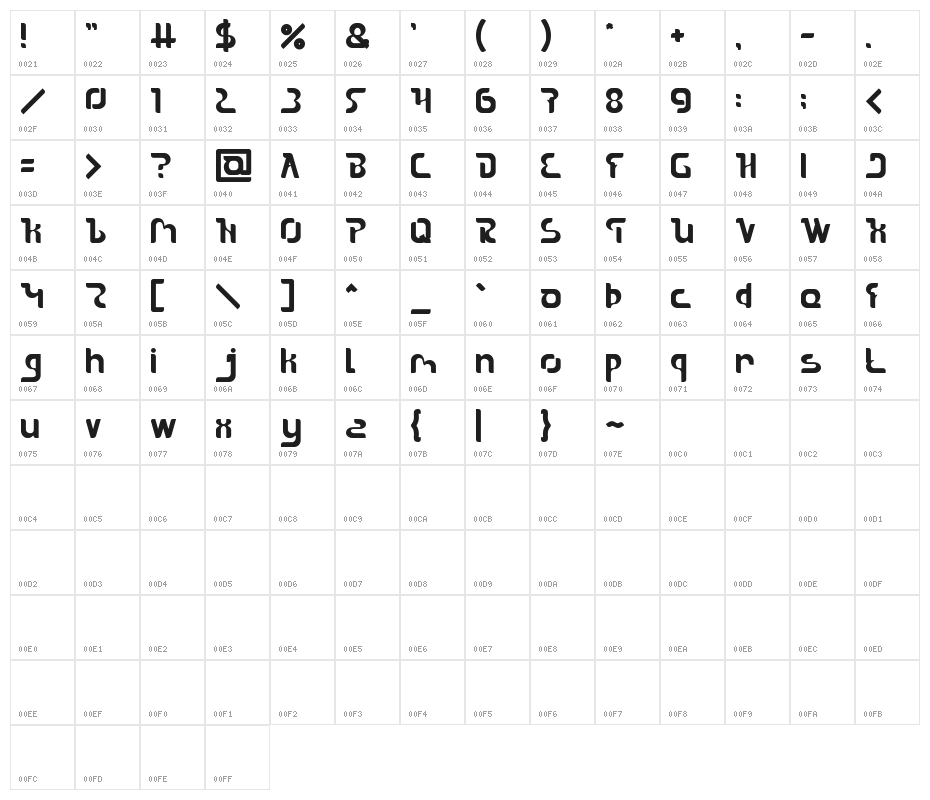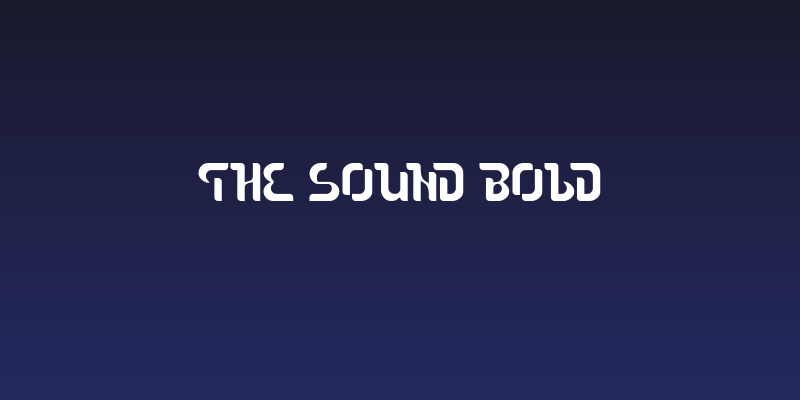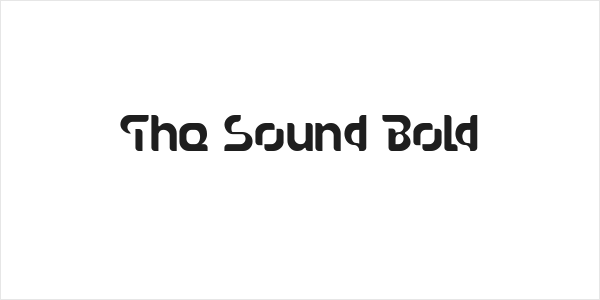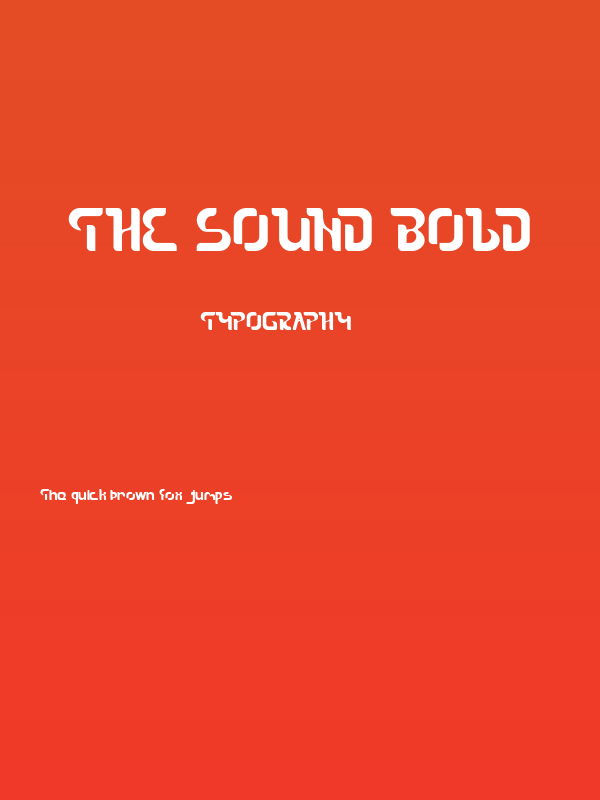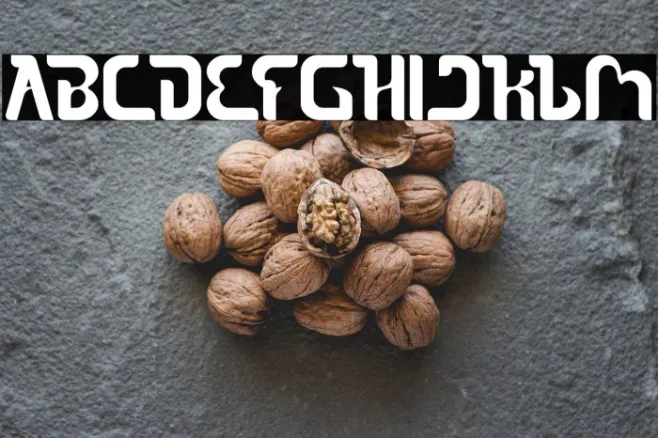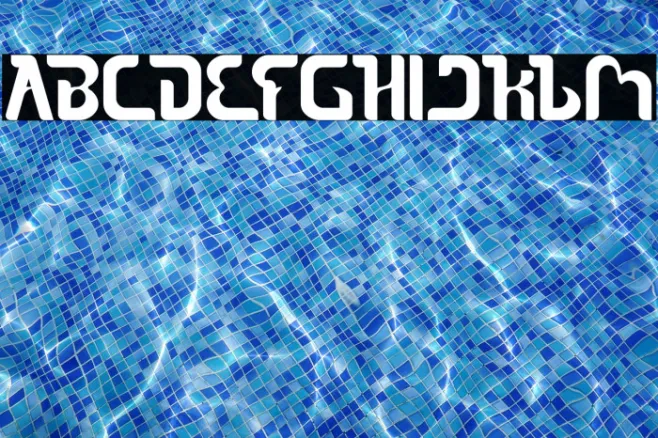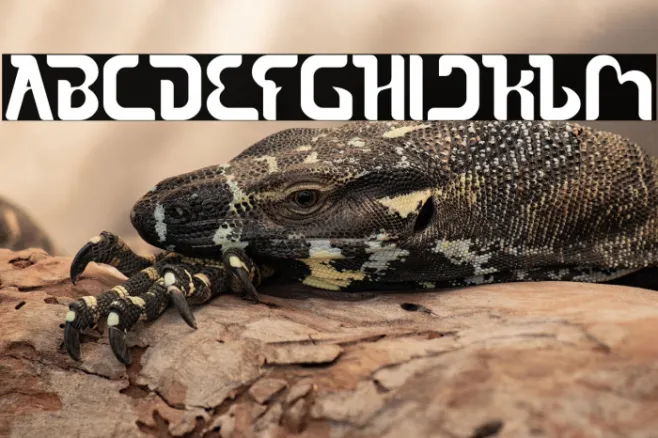
The Sound Bold Font
The Sound Bold Description
This font features a bold and modern design with a unique, futuristic aesthetic. The characters are constructed with rounded edges and a consistent stroke width, giving it a smooth and cohesive appearance. The uppercase and lowercase letters maintain a uniform style, with some characters exhibiting a slightly geometric influence. The numbers and special characters are designed to match the overall style, ensuring a harmonious look across all text. This font is ideal for projects that require a contemporary and eye-catching typeface.
| Proposed Projects | Ideal for branding, headlines, posters, and digital media that require a modern and bold aesthetic. |